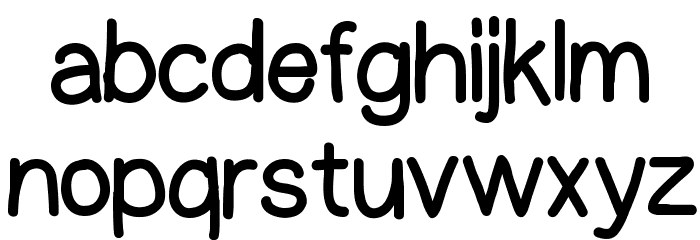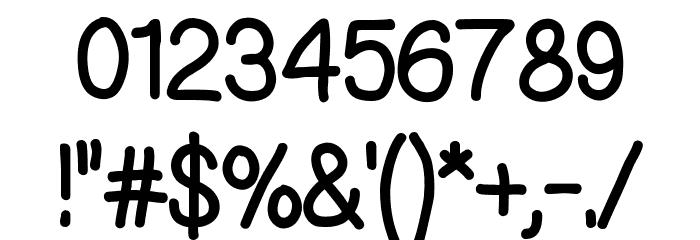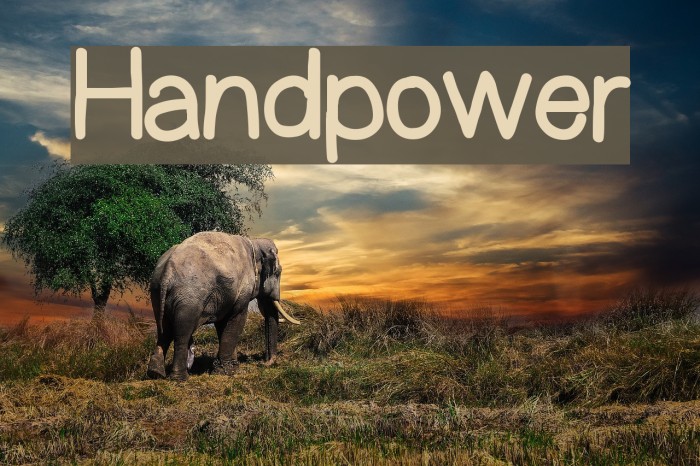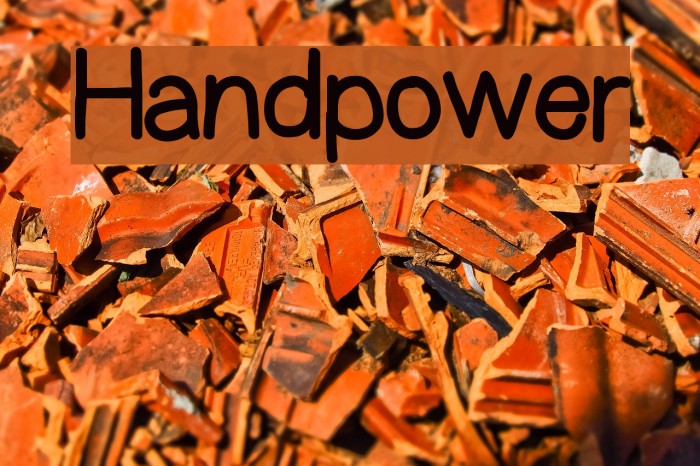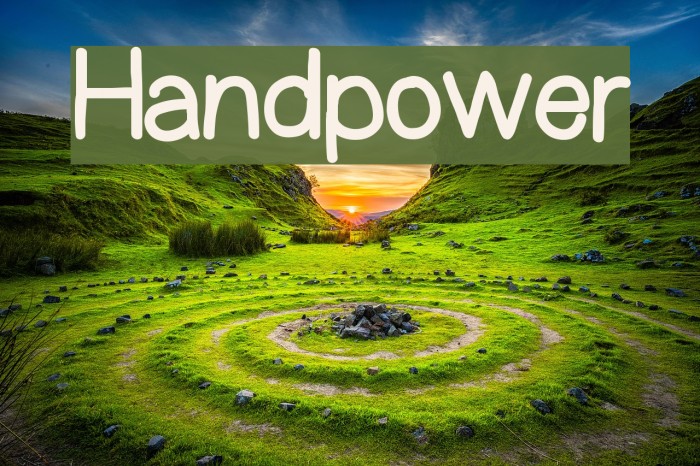
Handpower Font
This font features a playful and casual handwritten style, characterized by rounded edges and a consistent stroke width. The letters are slightly irregular, giving it a friendly and approachable appearance. It maintains a uniform height across both uppercase and lowercase letters, ensuring readability. The numerals and special characters are designed to match the overall style, with a similar rounded and informal look. This font is ideal for projects that require a personal touch, such as invitations, greeting cards, or children's books. Its simplicity and charm make it versatile for various design needs.
A playful, handwritten font with rounded edges and consistent stroke width.
- Proposed Projects: Ideal for invitations, greeting cards, children's books, and casual branding.
- Overall Style: Casual, Playful
- Use Case: Headlines, Informal text, Branding